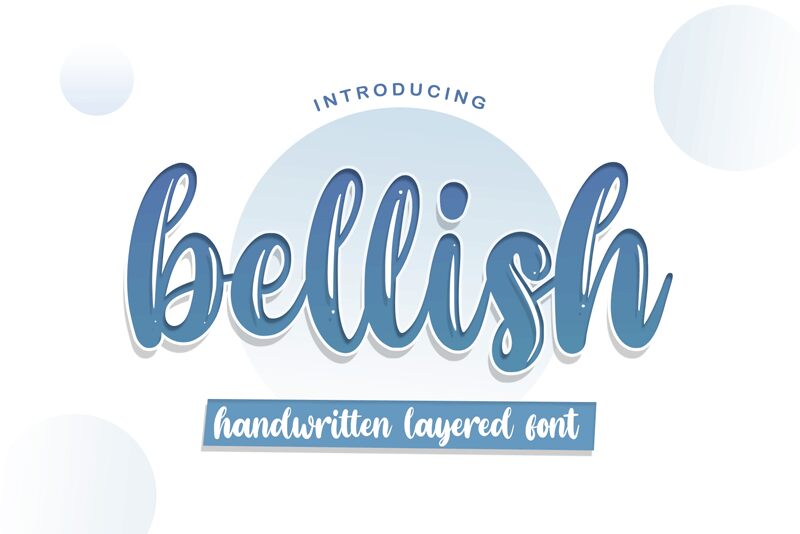
Bellish by Rochart Studio is a bold and expressive handwritten font that features a smooth brush texture. This layered typeface is perfect for adding personality and character to various design projects such as branding, packaging, posters, social media graphics, and more. The versatility of Bellish allows for endless possibilities with its ability to be used as a display or headline font in a variety of widths ranging from regular to bold. Its organic feel and unique letterforms make it an excellent choice for those seeking an authentic, handcrafted look that stands out from the crowd. Elevate your designs with Bellish today!